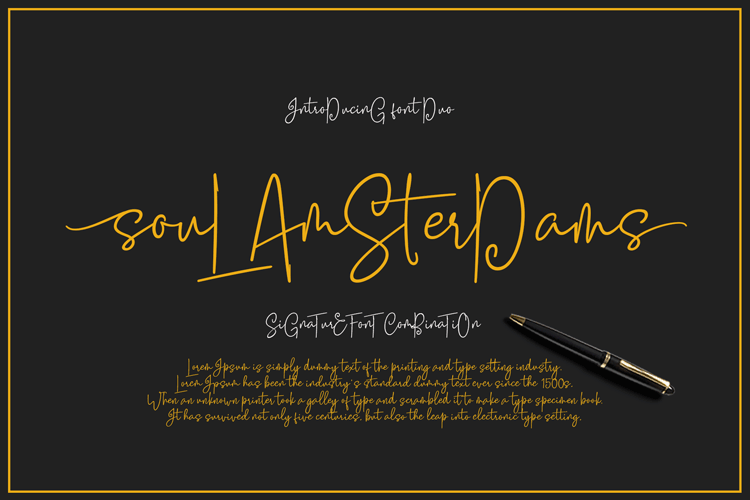
Soul Amsterdams Duo
Soul Amsterdams Duo, is another lovely modern script, signature and Combination font, which is combining the style of classic calligraphy with an modern style. combines from copperplate to contemporary typeface with a dancing baseline, modern and elegant touch. including alternates, and ligatures.